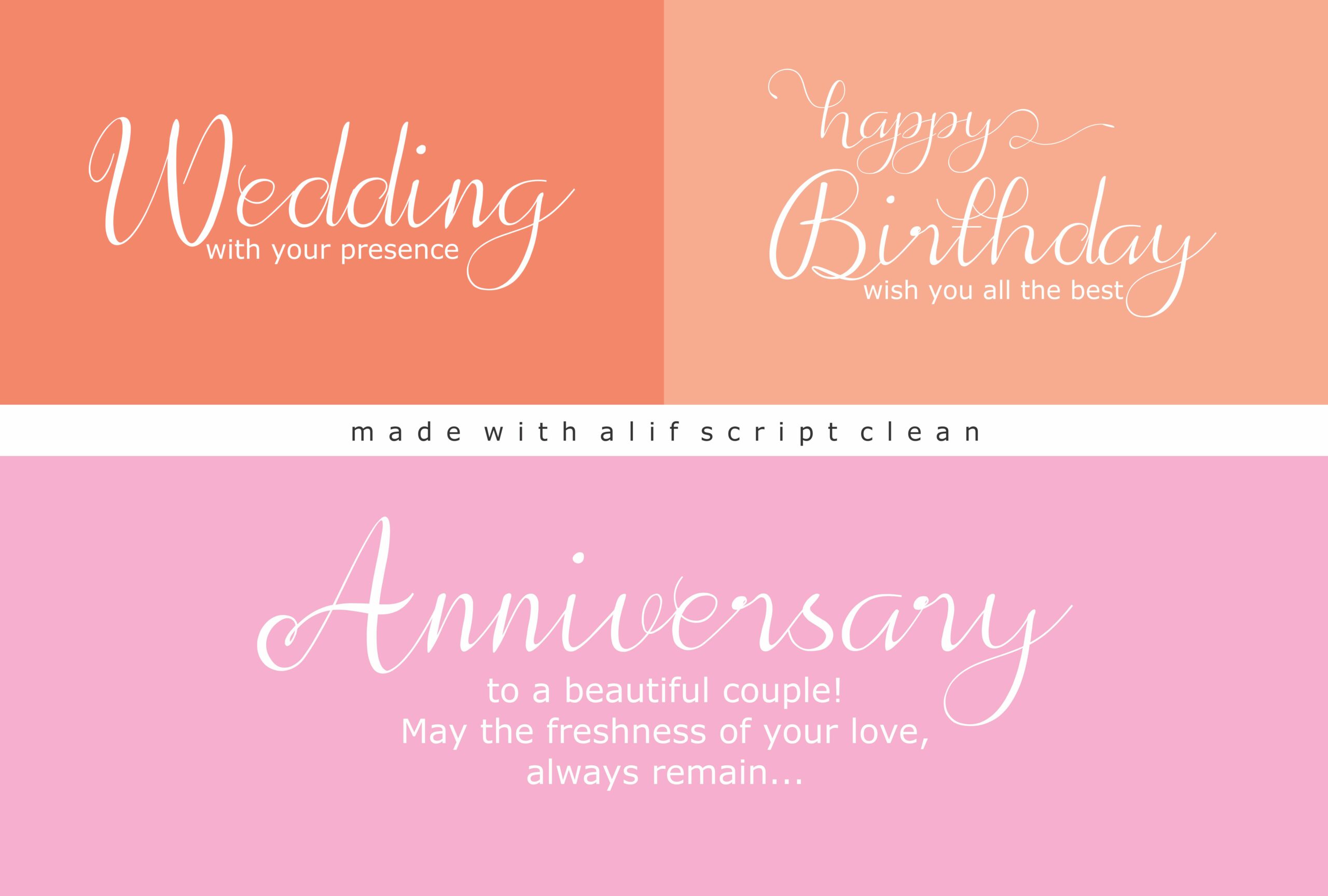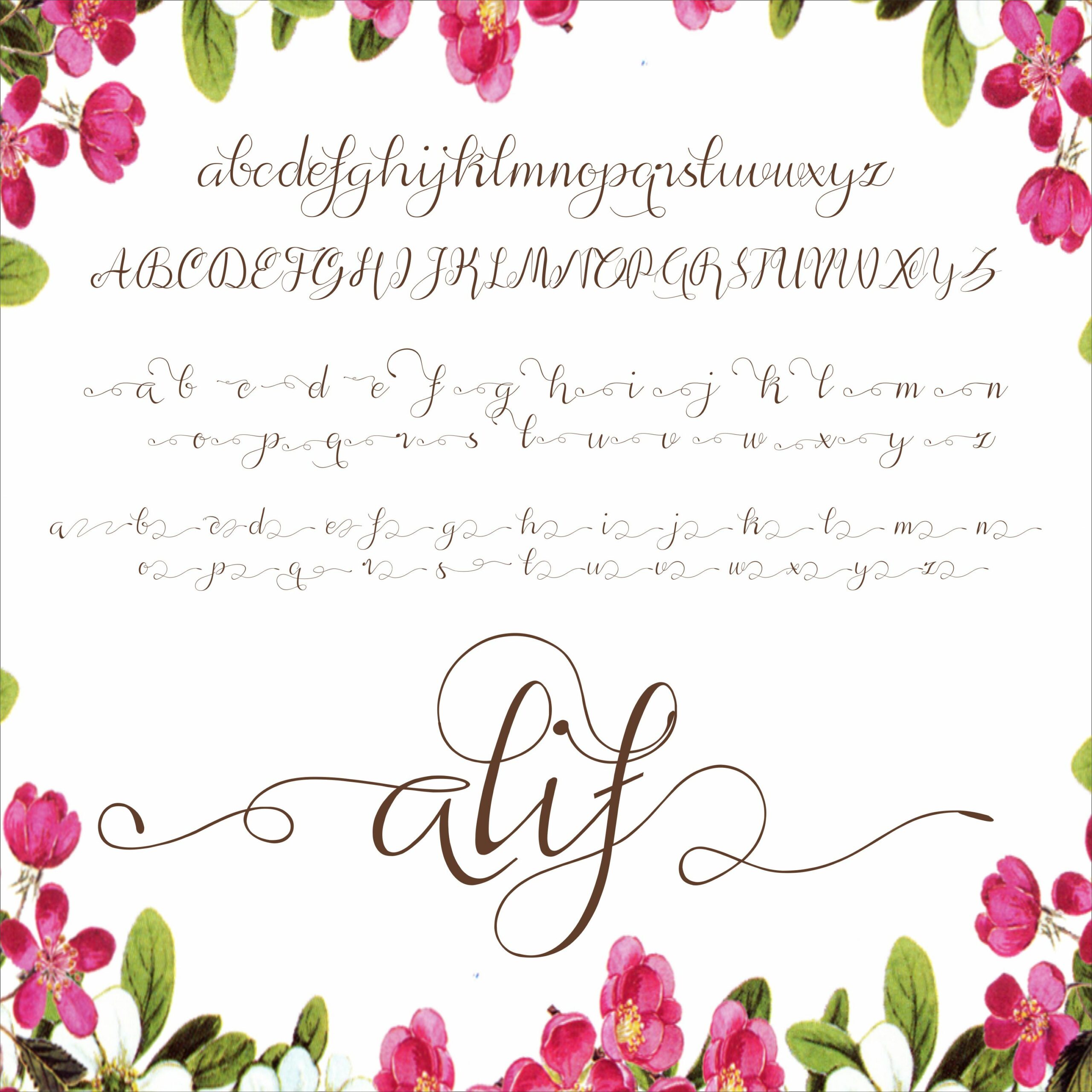
Alif Font
About Alif Font
Alif Script a new fresh & modern script with a handmade calligraphy style, decorative characters and a dancing baseline! Alif looks beautiful on invitationals, branded content, and more!